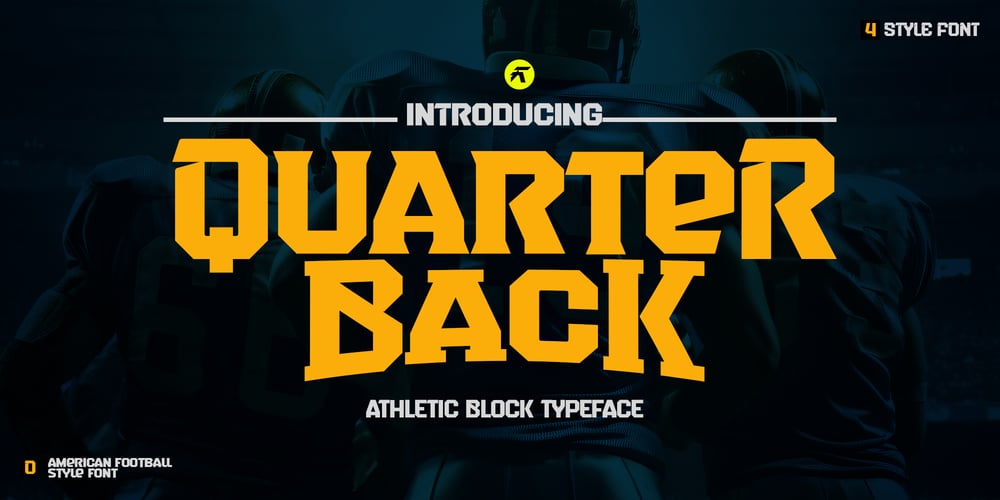
Quarterback Font Family was designed by Muhammad Afif Ersya and published by Trequartista Studio. Quarterback contains 14 styles and family package options. Quarterback is a fearless athletic font family with seven creative styles for added flexibility and variation. It’s perfect for sports logos, branding, posters, apparel design with it’s bold and confident appearance. The upper- and lowercase vintage characters comes with different renders to add authenticity and a more natural worn look.Quarterback features a full Adobe Latin 1 character set, with support for most western languages including: Afrikaants, Basque, Breton, Catalan, Danish, Dutch, English, Finnish, French, Gaelic, German, Icelandic, Indonesian, Irish, Italian, Norwegian, Portuguese, Sami, Spanish, Swahili and Swedish.